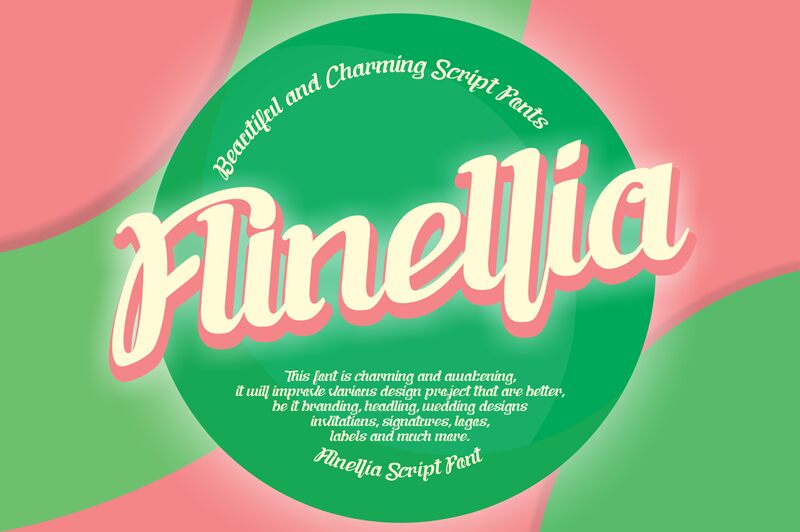
This Font is beautiful and charming, it will improve various design project that are better, be it branding, headling, wedding design invitations, logos, labels and much more.
Flinellia